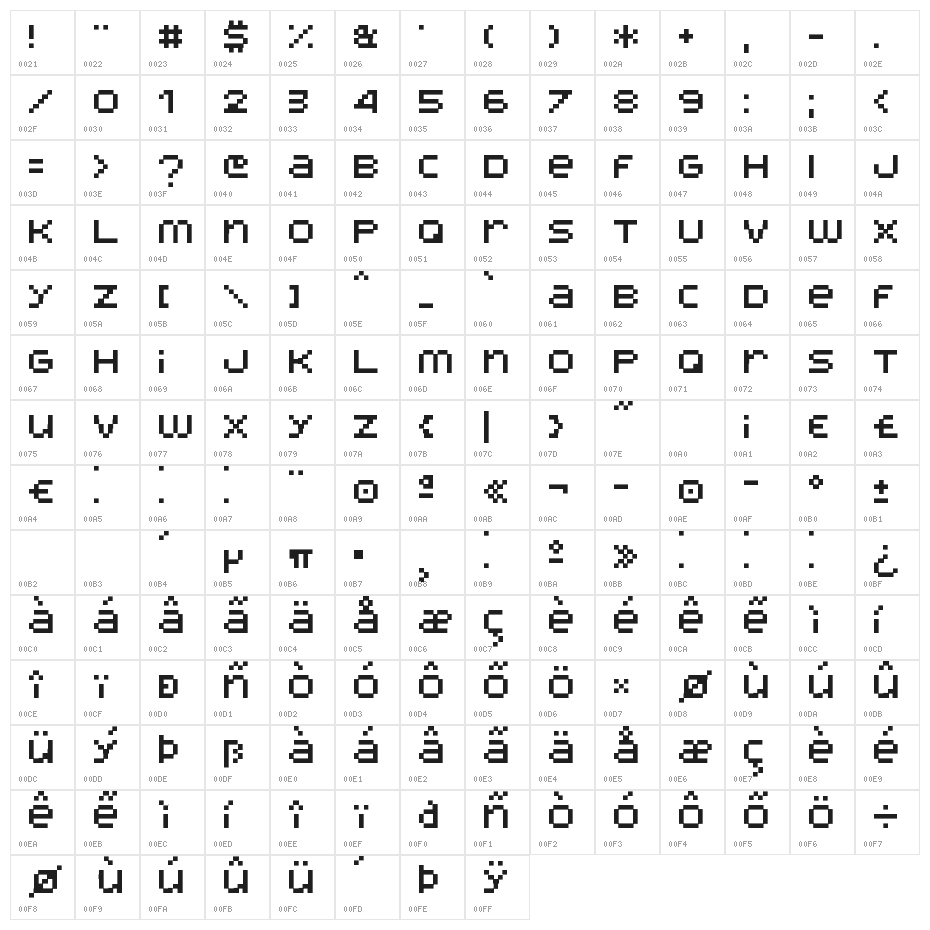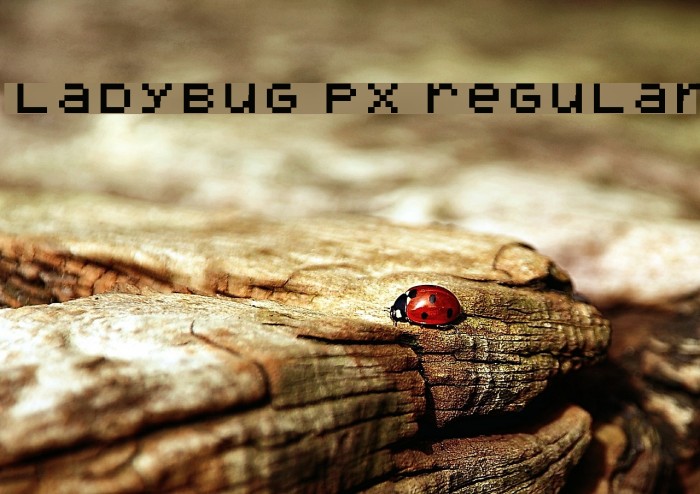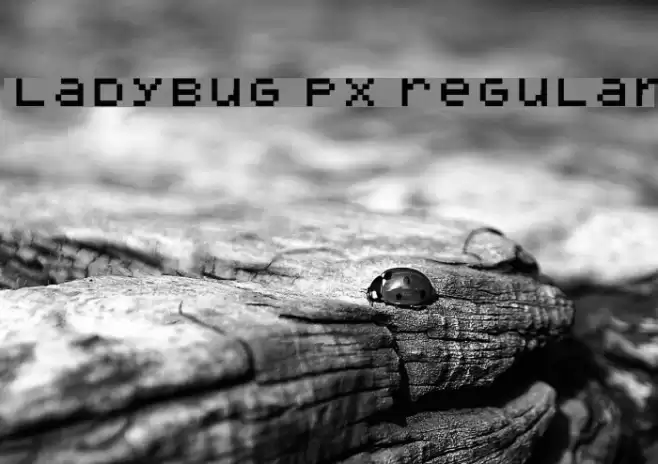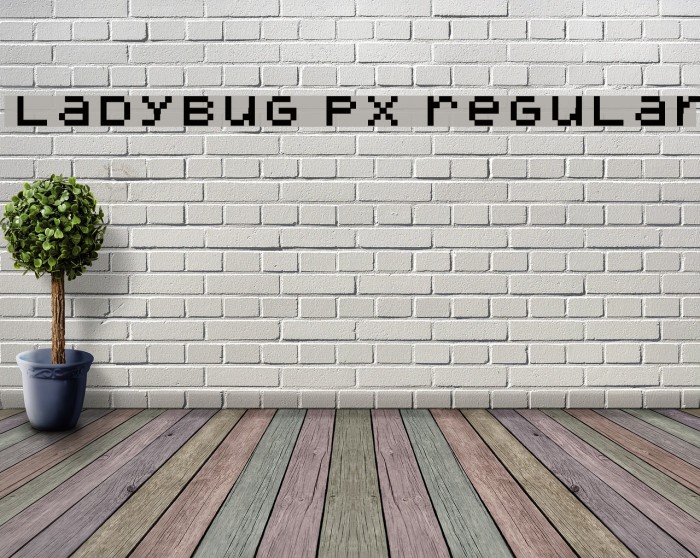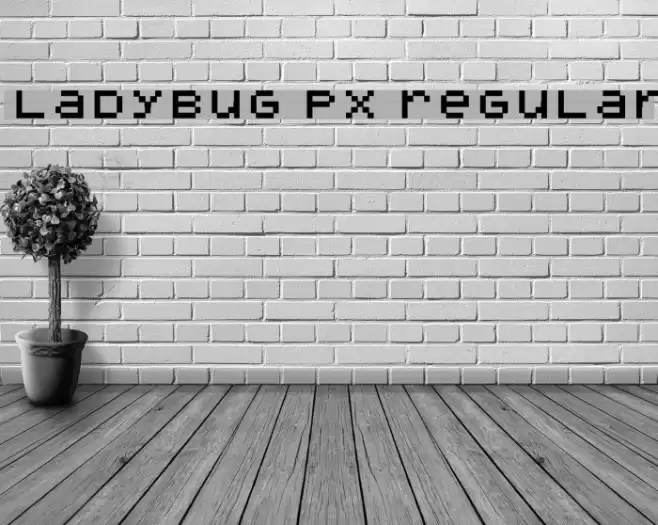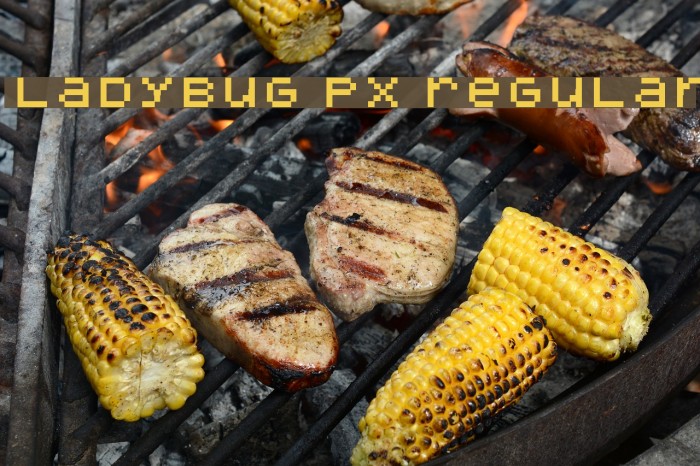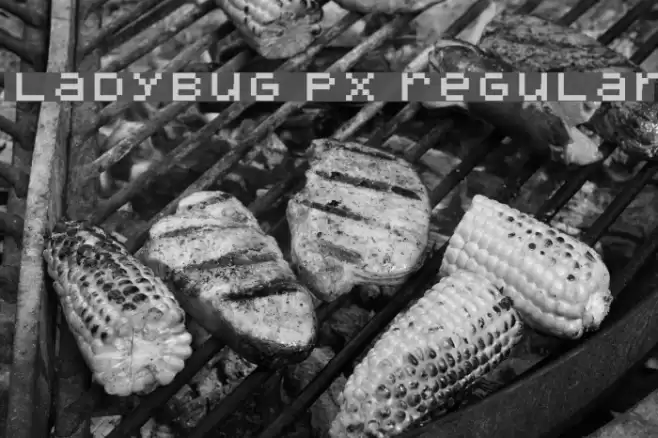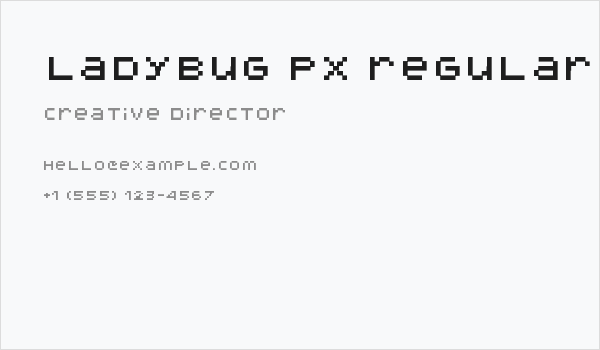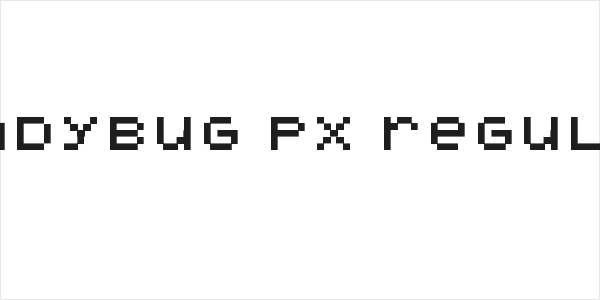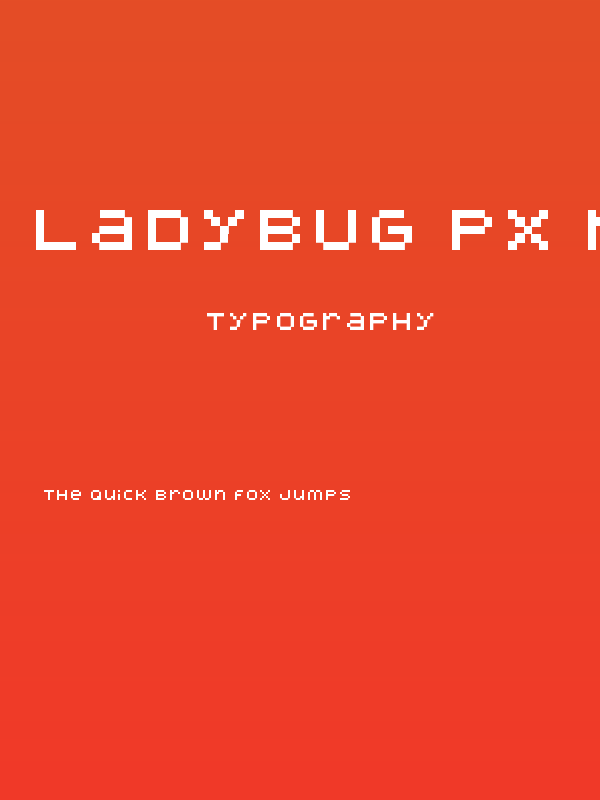
ladybug px Regular Font
ladybug px Regular Description
This font features a pixelated, blocky style reminiscent of early digital and video game typography. Each character is constructed with a uniform grid-like structure, giving it a distinctly retro and digital appearance. The characters are evenly spaced, maintaining a consistent width throughout, which enhances readability in small sizes. The design is straightforward and geometric, with no curves or embellishments, making it ideal for digital displays or projects that require a nostalgic or tech-inspired aesthetic.
| Use Case | Headlines, Digital displays, Logos |
| Proposed Projects | Ideal for video game design, digital art projects, retro-themed websites, and tech-inspired branding. |